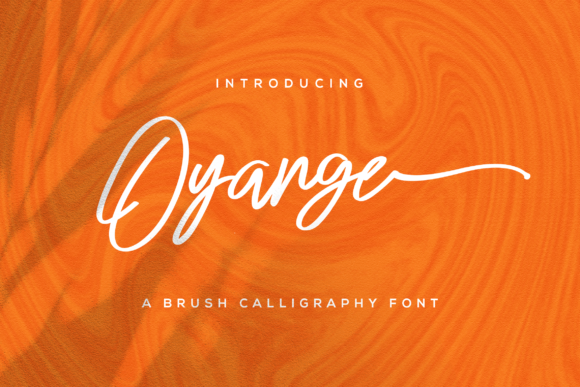
Journey into the world of Oyange Font, an exquisite script font crafted with love by StringLabs. Prepare to be captivated by its effortless charm and enticing authenticity, a mesmerizing fusion of modernity and tradition that breathes life into any creative endeavor. Oyange's enchanting strokes, reminiscent of delicate brushstrokes, possess an unparalleled charm that draws the eye and captures the heart.
Unlock a world of possibilities with Oyange, the ultimate font for cursive signatures, where elegance meets individuality. Its graceful lines and natural flow mirror the beauty of handwritten signatures, bringing a touch of personal flair to your digital creations. Step into the realm of unique expression and create a signature that speaks volumes about your brand's identity, leaving an enduring impression on your audience.
Embark on a creative expedition, transforming your DIY projects into breathtaking masterpieces with Oyange. The font's inherent versatility and adaptability know no bounds. Weave your words into stunning logos that exude sophistication, craft eye-catching social media graphics that captivate your followers, or design enchanting invitations that set the tone for unforgettable events. Oyange's magic extends to product packaging, T-shirt designs, and countless other ventures, adding an aura of enchantment to your every creation.
Experience the allure of Oyange, a font that breathes life into your artistic visions. Its enchanting beauty and boundless versatility will ignite your creativity and leave you spellbound with its transformative power. Unleash your imagination and embrace the world of Oyange, where beauty and individuality intertwine to create a symphony of visual delight.